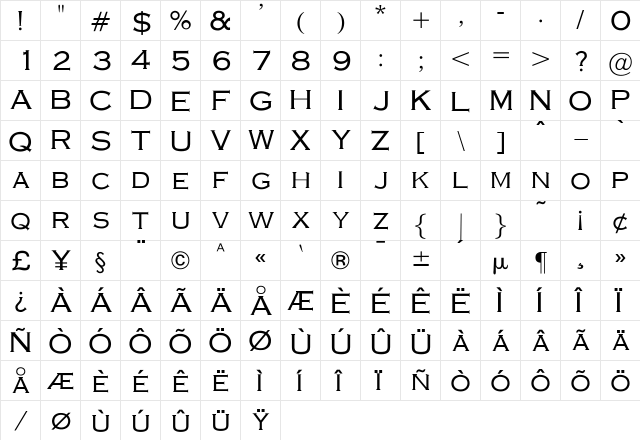
OPTICopperplate-Light Medium
Design Context for OPTICopperplate-Light Typeface
OPTICopperplate-Light offers clean, dependable letterforms without strong stylistic allegiance, making it a practical choice for designers who need flexibility. Its slender proportions lend an understated elegance to any composition.